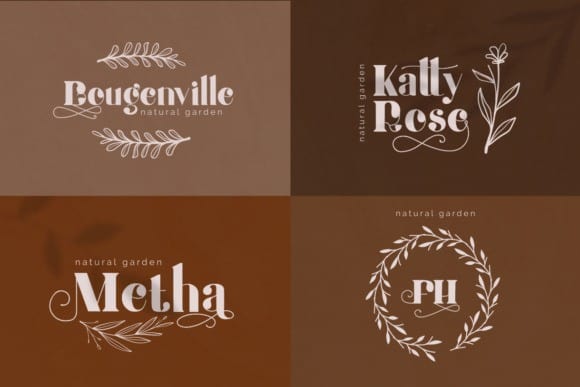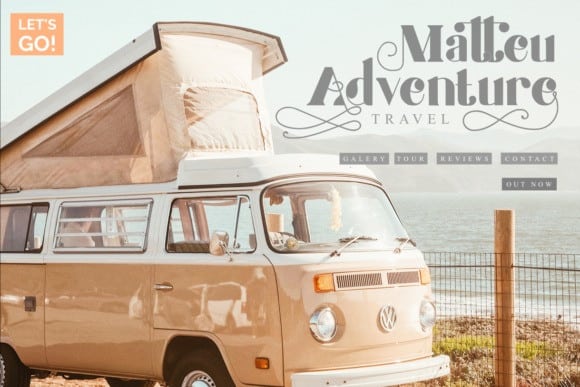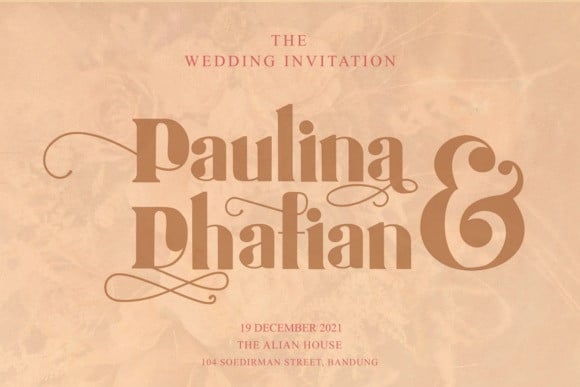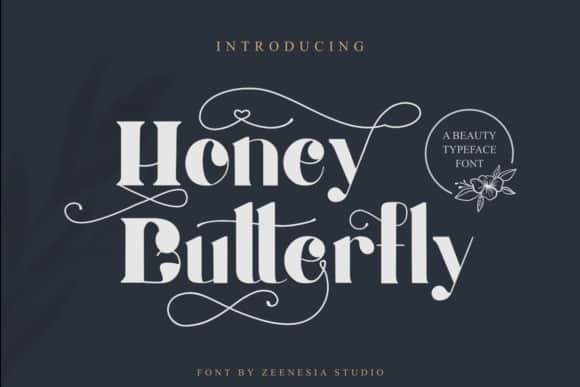
Honey Batterfly Display Font
Glad to introduce you a new Honey Batterfly Display Font – Modern display serif inspired by the famous minimalist logo, perfect for the purposes of designing templates, brochures, videos, advertising branding, logos and more. It’s designed and shared by zeenesia. This font is an incredibly unique and elegant display font. Masterfully designed to become a true favorite, this font has the potential to bring each of your creative ideas to the highest level!